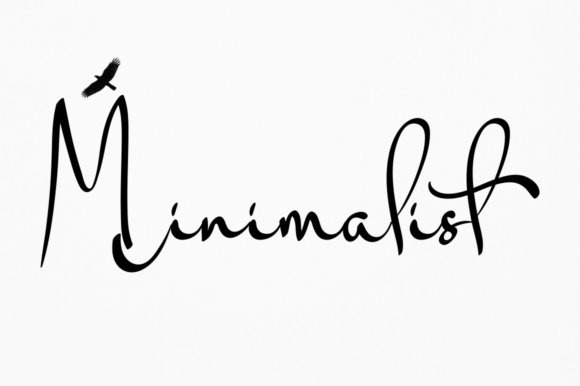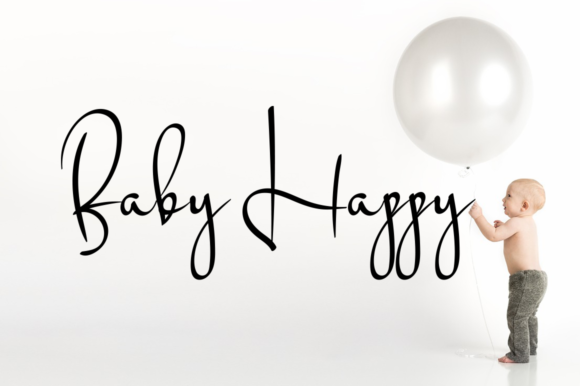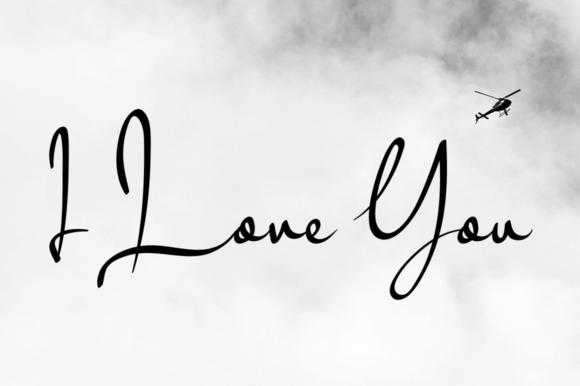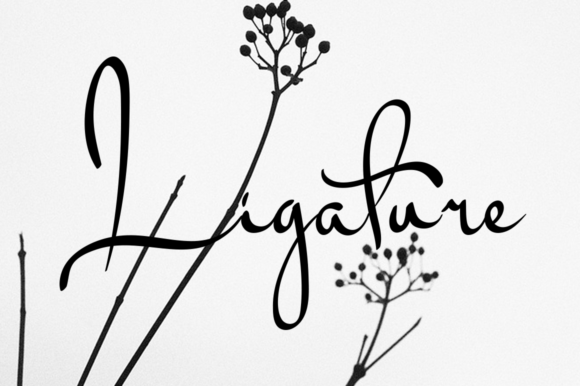
About Brilliant Font
Brilliant is a dainty, thin and cursive handwritten font. This gentle font will look gorgeous on a variety of design ideas. It will add a joyful and romantic touch to each of your projects!